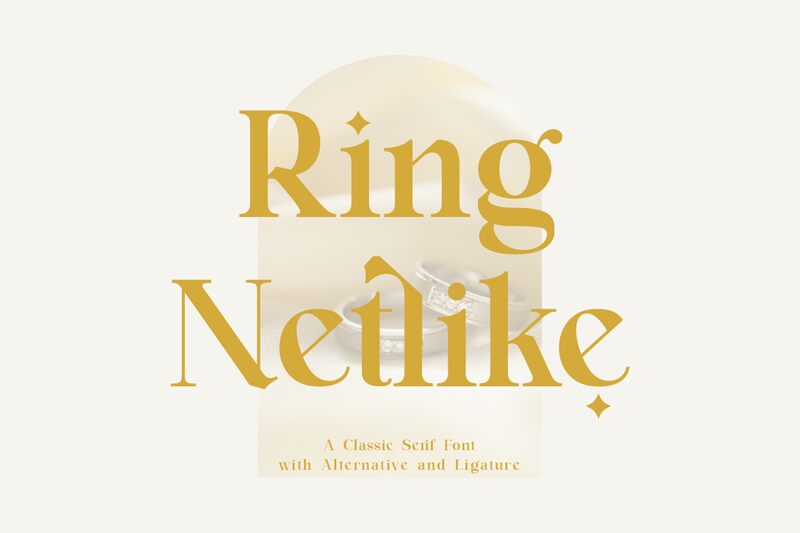
Introducing Ring Netlike, a light serif font designed by Farida Kurniawan. Perfect for branding, magazines, and logos, it adds a timeless elegance to any project. Give your designs a hint of sophistication with Ring Netlike today!